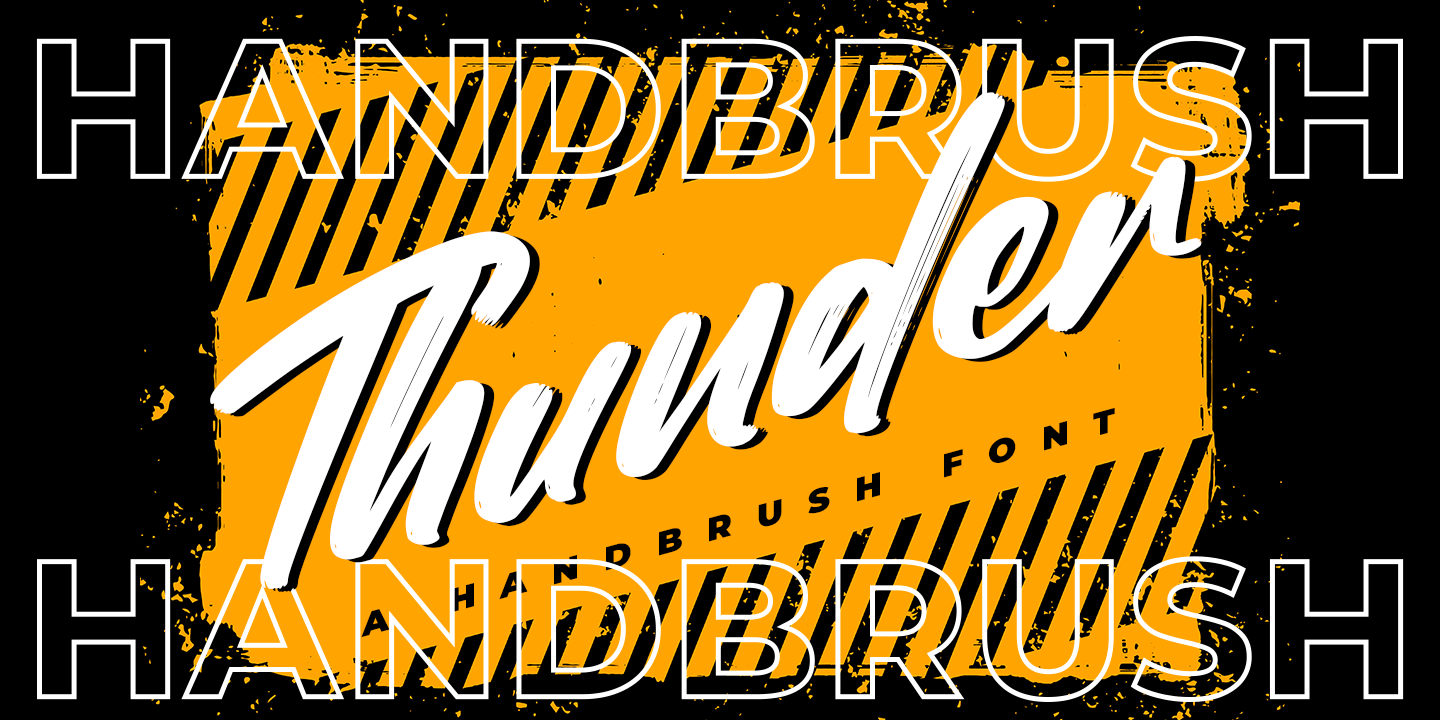
Thunder Font is perfect for storm chasing companies, powerful sports teams, electric energy brands, dramatic weather services, lightning protection systems, high-voltage equipment manufacturers, thunderous music venues, meteorological organizations, and any project requiring typography with electrifying power and atmospheric storm sophistication.
What makes Thunder Font exciting is its electrifying power that captures the awe-inspiring force and dramatic intensity of thunderstorms with letterforms that seem to crackle with the same raw energy and commanding presence found in nature's most spectacular electrical displays. This dynamic typeface embodies the primal power of atmospheric electricity with bold construction that mirrors the sudden impact and reverberating force of thunder that shakes the earth and commands immediate attention from all living things. The font's storm character and atmospheric sophistication make it perfect for brands celebrating natural power, electrical energy, and the magnificent drama of weather phenomena that remind us of nature's incredible force.
The Thunder Font family includes regular and bold weights, featuring complete uppercase and lowercase alphabets, numerals, punctuation marks, and storm-inspired design elements. The font maintains consistent electrifying energy throughout all weights while ensuring excellent readability for both powerful headlines and dramatic text applications in energy and weather-related contexts.
Whether you're designing for energy companies, creating storm-related materials, or developing powerful branding with thunderous atmospheric aesthetics, Thunder Font Free Download delivers unmatched electrical authority and storm sophistication to your projects. This exceptional typeface transforms ordinary text into powerful expressions of natural force that celebrate the magnificent drama of thunderstorms and the raw energy of electrical phenomena. The font's electrifying character makes it ideal for energy providers, weather services, and power-focused brands. Download this remarkable font today and bring the commanding presence of thunderous power to your design projects with authentic atmospheric sophistication and thunder-inspired electrical excellence.